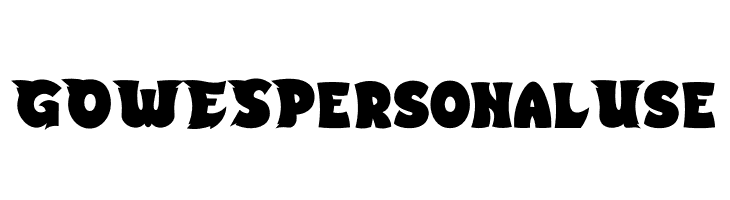
• GOWES Personal Use لخطوط تنزيل
A bold, playful font with exaggerated curves and a dynamic style.
• Gowhard لخطوط تنزيل
A bold, expressive handwritten font with dynamic strokes.
A playful, bold, and hand-drawn style font with rounded, irregular characters.
GoxaqoPersonalUse-Regular  لخطوط تنزيل
• Goya Heavy لخطوط تنزيل
• Goyo Regular لخطوط تنزيل
A bold, geometric font with a modular and futuristic design.
• Goyoh لخطوط تنزيل
A playful and flowing script font with smooth, cursive strokes.
• GOZBER GOZBER لخطوط تنزيل
A bold, futuristic font with geometric, rounded letterforms.
• gpkn لخطوط تنزيل
A modern, geometric font with clean, rounded edges and consistent stroke width.
• gpkn لخطوط تنزيل
A modern, geometric font with clean lines and rounded edges.
• GPL_Outline_Free لخطوط تنزيل
A bold, three-dimensional outline font with a modern and futuristic style.